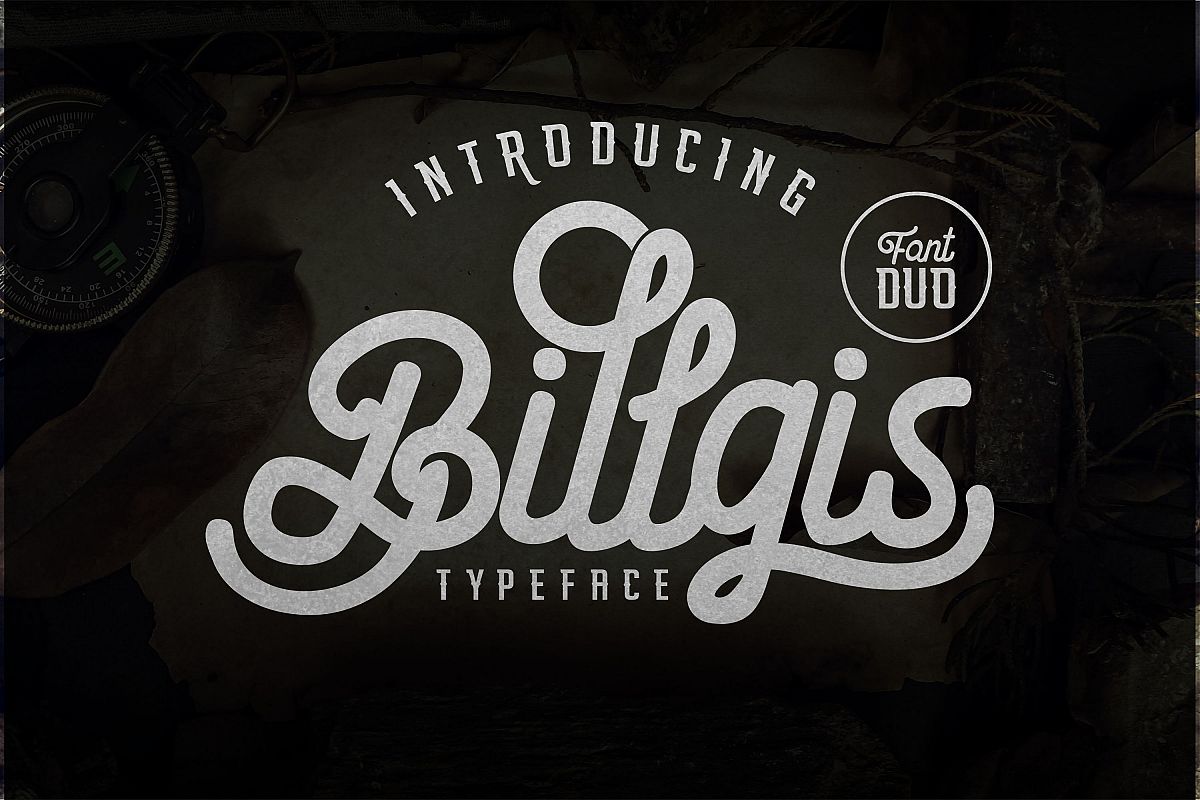
Billgis Font Duo
Billgis
The Billgis is a striking font duo. Its handwritten style will give
your design a natural feel. It’s perfect to make your design stand out
and for adding an unique look.
"Billgis" is great if used on:
Food Products, Business Cards, Vintage, Logos, Modern and various products because of their masculine and feminine qualities.